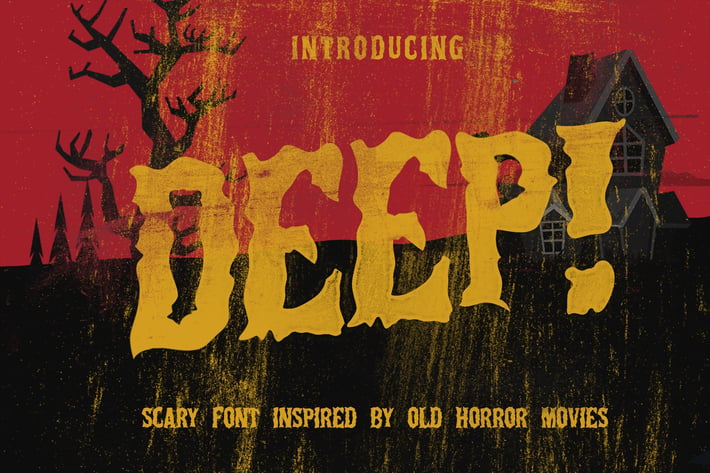
Deep Horror Font
Deep Horror Font, a scary font inspired by old horror movies. It comes in REGULAR and ITALIC version.
Suitable for design, element design, wedding, event, t-shirt, logo, badges, sticker, and awesome work about summer.
Ideal for loud messages. Made with flat marker adding realistic moves in it. Very interesting to use for logos, name tags, handwritten quotes, product packaging, merchandise, social media & greeting cards. Also, ideal to make t-shirts designs and other clothing products.
Also, the combination and usage of different letters and ligatures gives you an opportunity to have fun and at the same time create your own unique style.